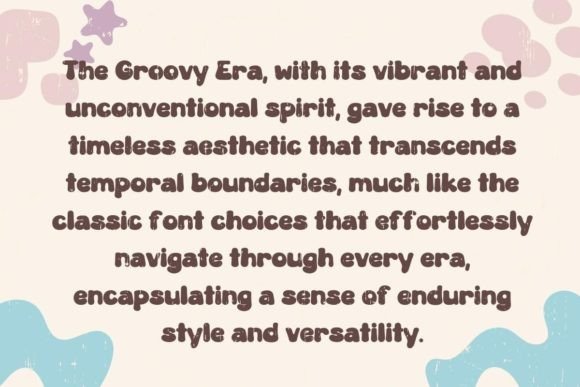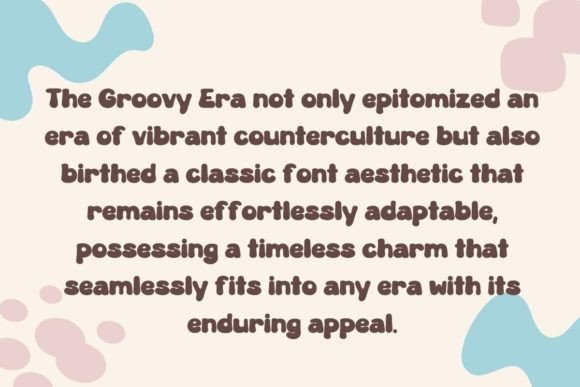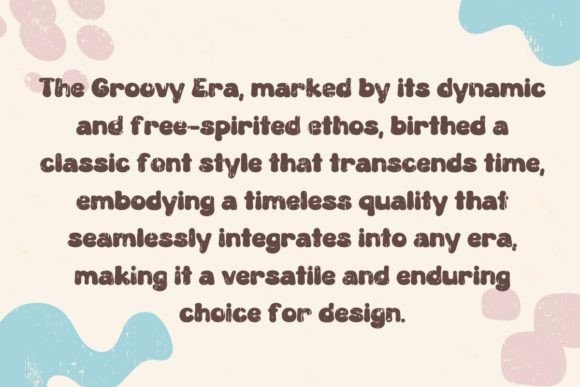
The Groovy Era Font: A Timeless Touch of Nostalgia
Remember the moment you stumbled upon an old record or a vintage poster that instantly transported you to a bygone era? The Groovy Era Font is that nostalgic spark that ignites a similar reaction in designers, infusing their creations with a timeless charm.
This classic font is more than just a design choice – it’s a bridge between the past and present, effortlessly blending the era’s distinct aesthetic with modern sensibilities. As a versatile companion for designers, the Groovy Era Font offers unparalleled creative freedom, allowing artists to tap into the era’s enduring charm and make it their own.
Groovy Era Font Key Features
- Font Family: Groovy Era Font is a sans-serif font family designed for digital use.
- Character Set: The font family includes over 800 characters, including uppercase and lowercase letters, numerals, punctuation, and special characters.
- Unique Characteristics: The font features a unique blend of modern and retro elements, with a distinctive rounded edge and a subtle gradient effect, giving it a distinctive look that’s perfect for creative projects.
Groovy Era Font Review
I recently had the chance to work with the Groovy Era Font, and I must say it’s a font that’s sure to bring back some nostalgic vibes. ✨ The font is a great blend of retro and modern elements, making it perfect for designers looking to create a unique and eye-catching visual identity.
- The font’s bold and playful personality makes it perfect for use in headings and titles. ✨ It adds a fun and energetic touch to any design project.
- The Groovy Era Font is highly customizable, allowing designers to adjust the spacing, weight, and style to fit their specific needs. ✨ This level of flexibility makes it a great choice for designers who want to create a consistent visual brand.
- The font is available in a range of weights, from light to bold, making it suitable for use in a variety of contexts, from body text to display text.
However, there are some limitations to consider. ⚠️ The font may not be the best choice for projects that require a more serious or professional tone, as its playful personality may come across as unprofessional.
Overall, I was impressed with the Groovy Era Font’s unique blend of retro and modern elements. While it may not be the best choice for every project, it’s definitely worth considering for designs that require a fun and energetic touch.
The Groovy Era Font is perfect for creating retro-themed designs, such as posters, flyers, and social media graphics. To get the most out of it, try pairing it with bright, bold colors and playful graphics.
- Retro-themed posters and flyers
- Social media graphics and advertisements
- Wedding invitations and party decorations
Alternatives to Groovy Era Font
Great Vibes is a modern, cursive script font that evokes a sense of fun and playfulness. It’s perfect for use in titles, headings, and other design elements where you want to add a touch of whimsy. Great Vibes is a great alternative to Groovy Era Font when you want a more contemporary feel.
Comparison to Groovy Era Font: Great Vibes is more refined and polished, making it suitable for a wider range of design applications. While Groovy Era Font has a more nostalgic feel, Great Vibes is more versatile and adaptable.
Carolyna Pro is a elegant, high-end script font that exudes sophistication and refinement. It’s ideal for use in luxury branding, high-end advertising, and other design applications where you want to convey a sense of prestige and exclusivity. Carolyna Pro is a great alternative to Groovy Era Font when you want a more luxurious feel.